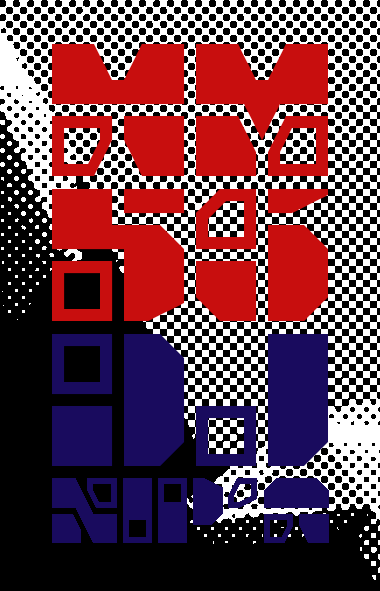
fs GRID
by thalamic
Somehow the idea for the T popped in my head. Next, I tried to imagine if the same overly bold and fragmented T can be translated to something like an A or S. Therefore, this was just an exercise in trying to fit the basic idea into all characters. Surprisingly, the whole thing came together within minutes. The rest of the time was spent in refinement.
Love it. Classic Ata. Although I think the C,G & E,F could be more in sync with each other.
Oh and 5&6 are very similar. :)
I think 5 would be better with a squared off top left corner.
I agree about 5 6 and even G being very similar. I should have squared off the 5 from the start.
H and M are a little too close for comfort as well. D has J undertones. Etc. this is hardly a functional font. None of my fonts really are.
I don't want excuses. I want action. Ha Ha :).
H&M, D&J are fine in my eyes
Very effective!
Very strong design - with that WOW! factor.
I love this kind of works! I love this guy!